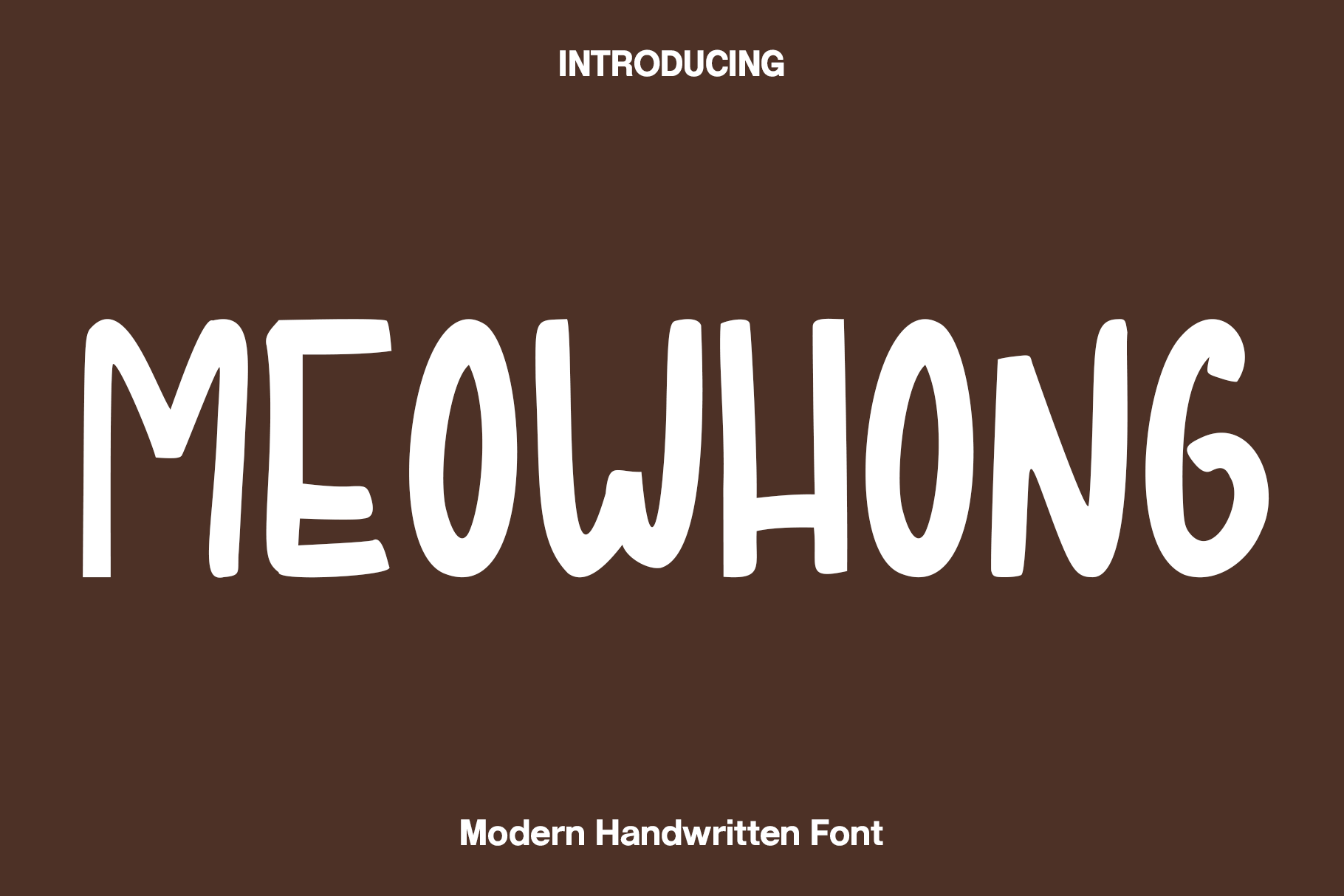
Meowhong - Modern Handwritten Font
Meowhong is a bold modern display font created to bring energy, movement, and strong visual character into your creative projects. Inspired by contemporary typography, urban graphics, and dynamic visual design, Meowhong features distinctive cutout details and a powerful slanted structure that gives every word a sense of speed and direction. Its bold proportions and carefully balanced construction provide excellent readability while creating a memorable and impactful appearance.
Perfect for poster titles, menu flyers, product packaging, logos, monograms, branding, apparel, advertising, social media graphics, promotional materials, editorial layouts, and modern headlines, Meowhong adapts beautifully across both print and digital applications. Its energetic style makes it an excellent choice for designs that need confidence, movement, and a contemporary edge.
Whether you're creating a striking logo, designing bold packaging, developing a modern brand identity, or producing attention-grabbing promotional graphics, Meowhong gives your typography the power to stand out. The combination of modern cutouts and dynamic slant creates a strong visual rhythm that adds personality and intensity to every composition.
With its bold display character and contemporary aesthetic, Meowhong transforms ordinary text into powerful visual statements. It is a versatile typeface for designers seeking modern typography that feels energetic, stylish, and distinctive.
Meowhong Font Features:
Modern dynamic display style
Bold letterforms with distinctive cutout details
Dynamic slanted structure
Numbers and punctuation
Perfect for posters, menu flyers, packaging, logos, monograms, branding, apparel, advertising, and social media
Suitable for both print and digital projects